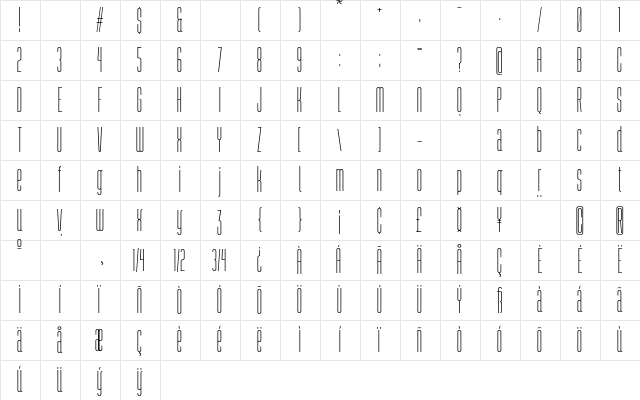
Abastina Regular Free Font
Abastina Regular
Foundry: Matias Castro & Sebasti￿Asegurado
Designer: Matias Castro & Sebasti￿Asegurado
Design Context for Abastina
Abastina is a composed and adaptable typeface that performs quietly and consistently across a wide range of design contexts.
Who designed the Abastina Regular font?
This font was published by Matias Castro & SebastiAsegurado. Check the technical specs section for copyright and designer details.